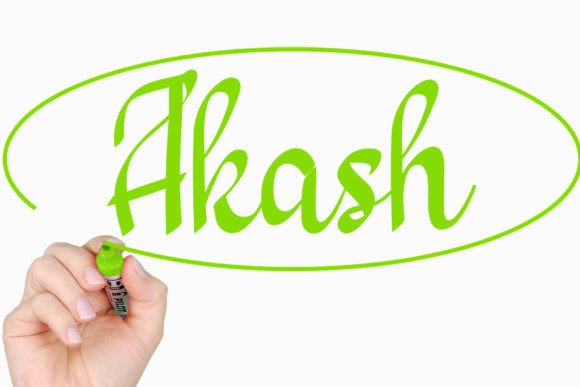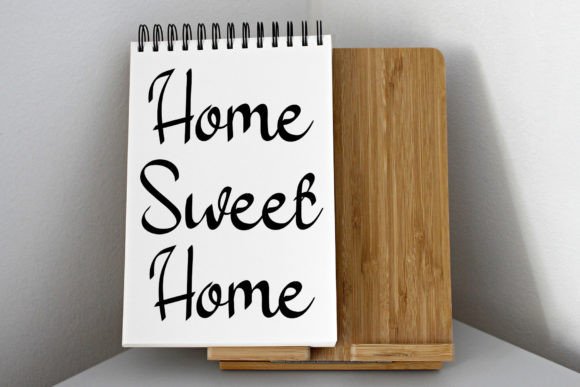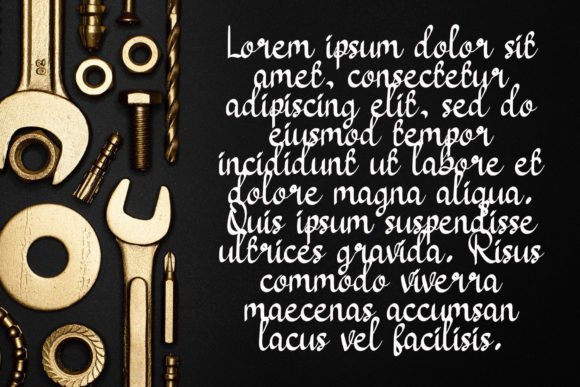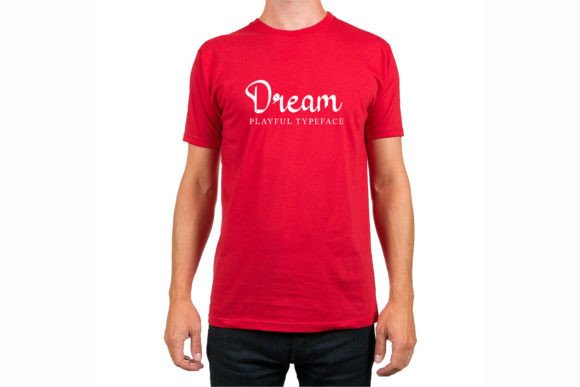
Akash Font
What Is Akash Font?
Akash is a unique and elegant handwritten font designed with a professional touch. Its refined letterforms and smooth flow bring a sense of sophistication and charm to every project. Whether you are designing for personal celebrations or professional use, Akash makes your words stand out beautifully.
Akash is incredibly versatile. Use it to create stunning wedding invitations that feel romantic and authentic. For greeting cards, birthday announcements, and party invitations, this font adds a personal, heartfelt touch that recipients will love.
It’s also an excellent choice for school projects and academic presentations. Akash’s clean and legible style ensures your work remains professional while adding a creative flair. Event signage, labels, and product packaging also benefit from the font’s elegant character.
Why Choose Akash Font?
Akash is crafted to balance style with readability. Each character features graceful curves and a slightly varied baseline, giving your text a dynamic, handwritten look. The font is PUA encoded, making all glyphs and swashes easily accessible without extra design software.
Akash instantly elevates any design by adding a sophisticated, personal touch. Even the simplest layouts gain warmth and visual interest. This makes your work feel more polished and thoughtful, helping you build stronger connections with your audience.
The font’s versatile style adapts to different moods—romantic, playful, or professional—depending on how you use it. This flexibility makes Akash a valuable asset in your font library.
Akash isn’t just a font—it’s an opportunity to express your ideas with elegance and heart. Whether you’re designing wedding stationery, school materials, branding, or special event invitations, Akash will help your projects shine.